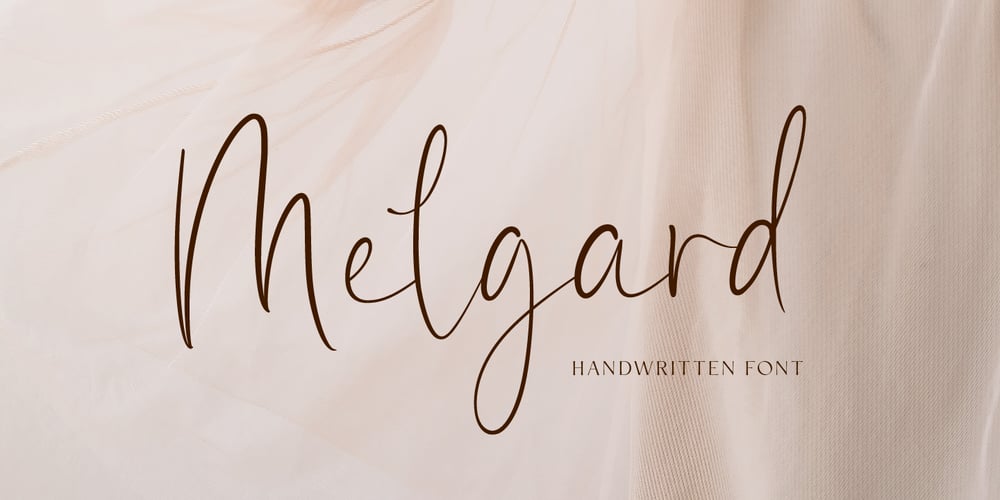
Melgard Font Family was designed by Pavel Larin and published by Larin Type Co. Melgard contains 1 styles and family package options. Melgard this amazing handwritten font is light and elegant, will emphasize your personality in any project and will charm you with its signature. This font includes alternates for Uppercase and Lowercase, make your signature with them. You can use it to create logos, branding, t-shirts, book covers, stationery, marketing, blogs, magazines, cosmetics, signage, and more. This font is easy to use has OpenType features, and supports PUA encoding.